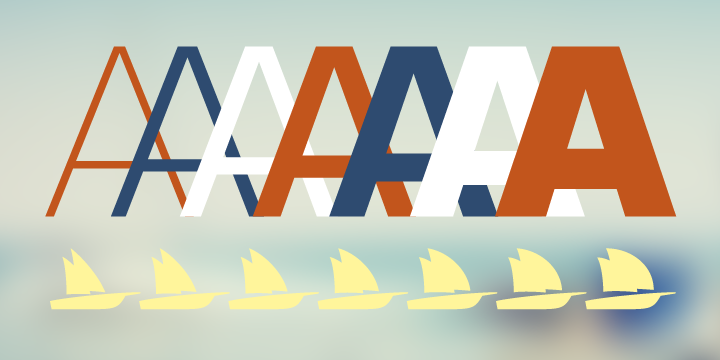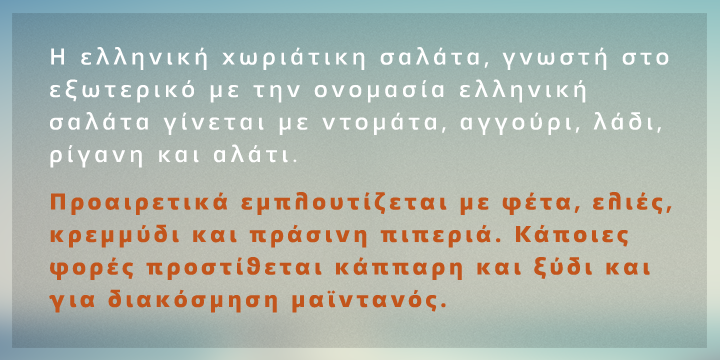
Adria Grotesk
Adria Grotesk is a sans serif font family. This typeface has fourteen styles and was published by FaceType.
Adria Grotesk is a superfriendly and sunny humanist typeface that comes in 7 carefully crafted weights and charming upright italics.
You will find a fine choice of lining, tabular and old style figures, numerators, denominators, tabular figures, fractions, ligatures, some sweet symbols and even alternate arrows.
It was designed by Marcus Sterz.
Adria Grotesk is a fourteen font, sans serif family by FaceType.
Adria Grotesk  has extensive OpenType support including 5 additional stylistic sets, Contextual Alternates, Lining Figures and Standard Ligatures making it a powerful font for experienced designers.
Adria Grotesk has extensive Latin language support and supports the languages Greek and  more (127).
Adria Grotesk is a sans serif font family.
Adria Grotesk is a superfriendly and sunny humanist typeface that comes in 7 carefully crafted weights and charming upright italics. You will find a fine choice of lining, tabular and old style figures, numerators, denominators, tabular figures, fractions, ligatures, some sweet symbols and even alternate arrows. It was designed by Marcus Sterz.